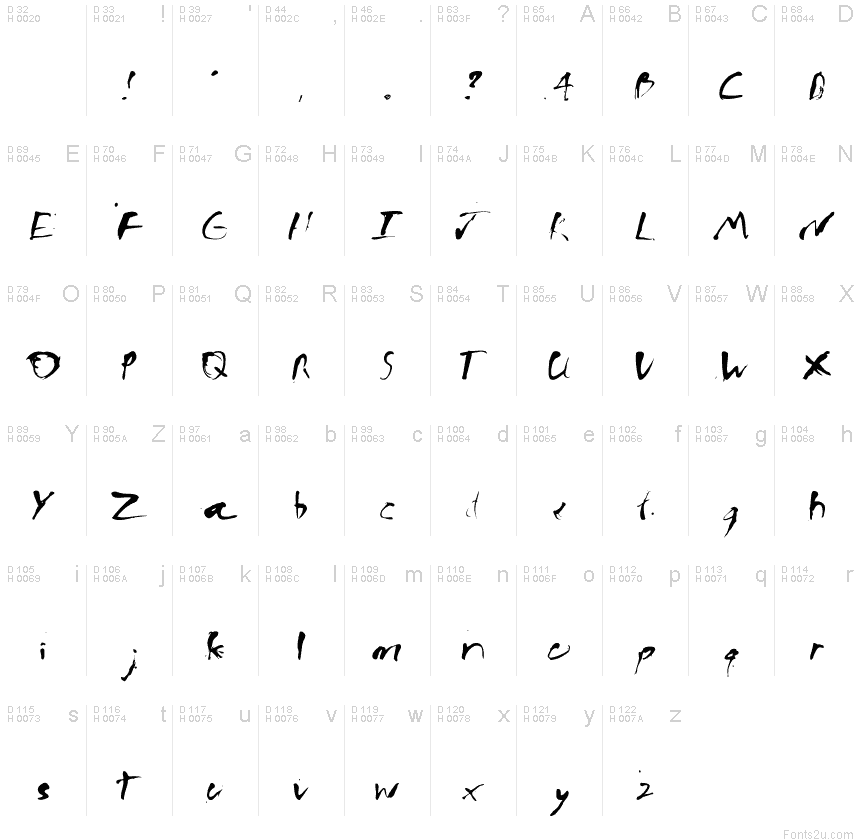
Inkbleed
Ink Bleed font is a free grunge brush typeface that looks like it was dragged across the page with a dripping marker. Thick black strokes smear and pool into raw ink blots, while thin, scratchy connections keep the letters feeling fast and hand‑done. The shapes wobble, splatter, and taper in unexpected ways, giving every word a chaotic, wet-paint energy that’s hard to fake digitally.
This free font shines on horror posters, punk or metal album covers, underground zines, streetwear logos, edgy social graphics, and game titles that need a grimy, handmade punch. Using Ink Bleed in large sizes lets the inky textures really show; pair it with a clean, narrow sans serif for body text to keep layouts readable while the headlines scream.